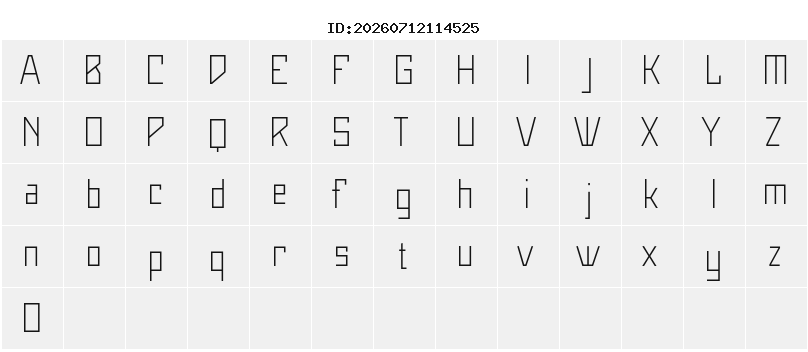
• Font Name: Maiers Neue Nr.8 Pro reduced
• Designer: Ingo Zimmermann, Karl O. Maier
• Manufacturer: ingoFont Augsburg, Ingo Zimmermann. Aus: Schriften=Sammlung fuer Techniker. Herausgegeben von Karl O. Maier.
• Description: ingoFont Augsburg, Ingo Zimmermann. Aus: Schriften=Sammlung fuer Techniker. Herausgegeben von Karl O. Maier.
About Maiers Neue Nr.8 Pro reduced.otf
Maiers Neue Nr.8 Pro reduced.otf is a modern, elegant sans-serif font designed for ultimate readability and visual harmony. Perfect for branding, headlines, web design, and print materials.